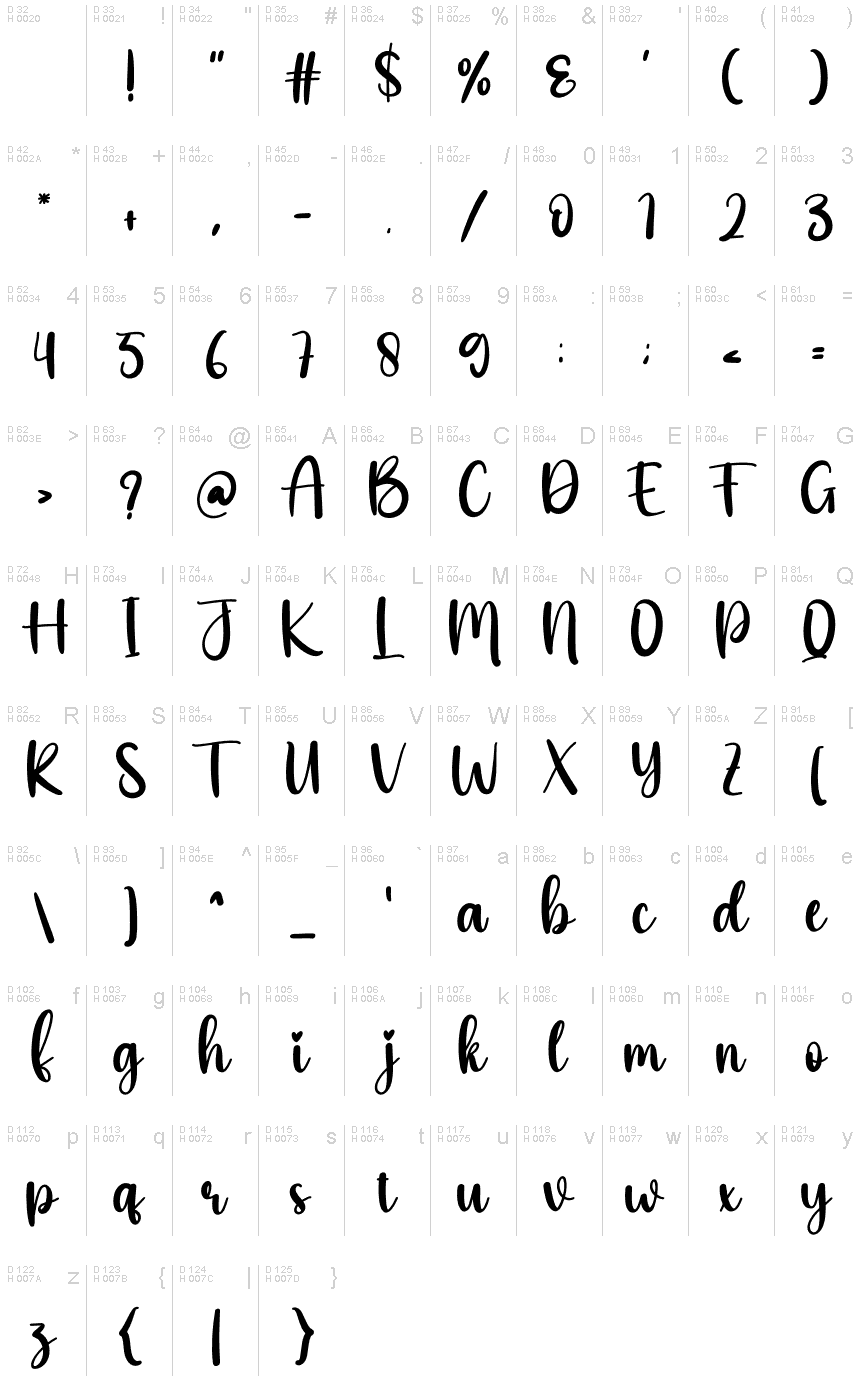
Excited
Meet Excited, the adorable font created by Scratchones. With its cute handwritten style, Excited is perfect for projects that need a touch of playfulness and charm.
Use this font to bring life to children's books, greeting cards, and party invitations. Its whimsical curves and bouncy letters will capture the attention of young readers and evoke excitement in every word. Whether you're designing a logo for a toy store or creating social media graphics for a kid-friendly event, let Excited add a sprinkle of joy to your project.